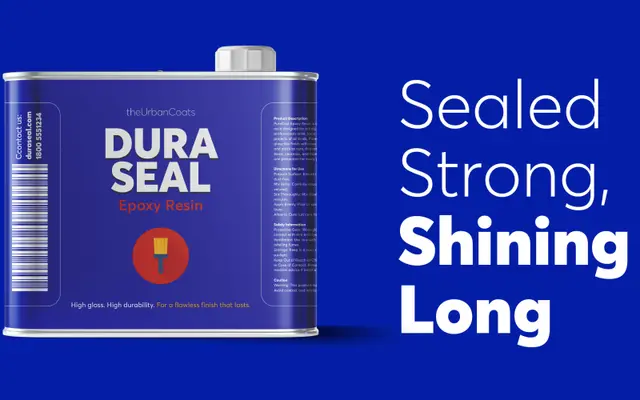
Averta Standard
The Designers Foundry · Kostas Bartsokas
Averta Standard specimen from The Designers Foundry
A geometric sans by Kostas Bartsokas that blends European grotesque and American gothic influences across nine weights with true italics and support for over 400 languages.
Drawn with purely geometric rounds, open apertures and low contrast strokes, it aims for a modernist, neutral and friendly character suited to text and display use alike. The family spans Extrathin to Black with matching true italics, and extends into narrow and condensed widths for tight headlines. Cyrillic support earned third place at the 2017 Granshan Awards, and the family is also available as a variable font covering both weight and width axes.
Averta is explicitly described as a geometric sans serif, drawing on early European grotesques and American gothics, with purely geometric rounds, open apertures and low contrast strokes.